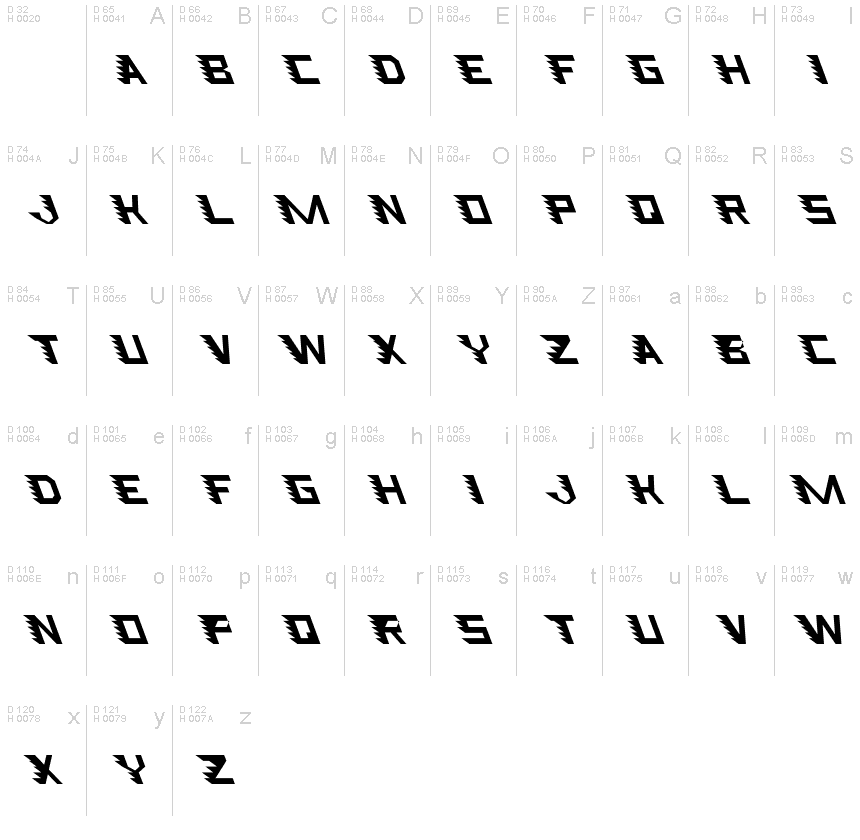
Speed Attack Demo
Speed Attack is a stunning display font designed by Calligraphy Fonts. With its decorative style and semi-bold weight, this typeface will add an extra element of excitement to any project. The semi-expanded width also makes it a great choice for headlines, posters, and other attention-grabbing designs. Use Speed Attack in your next sports-themed project or to create eye-catching advertisements. This font is perfect for conveying speed, motion and energy, making it an excellent choice for branding or marketing campaigns that require high-impact visuals. Let Speed Attack take your design to the next level!